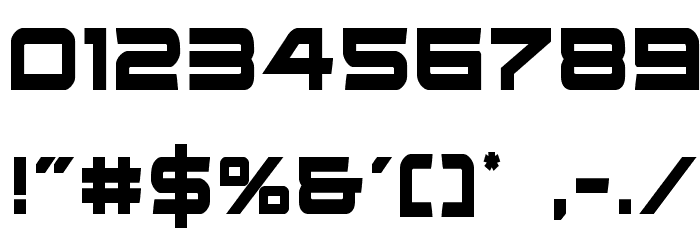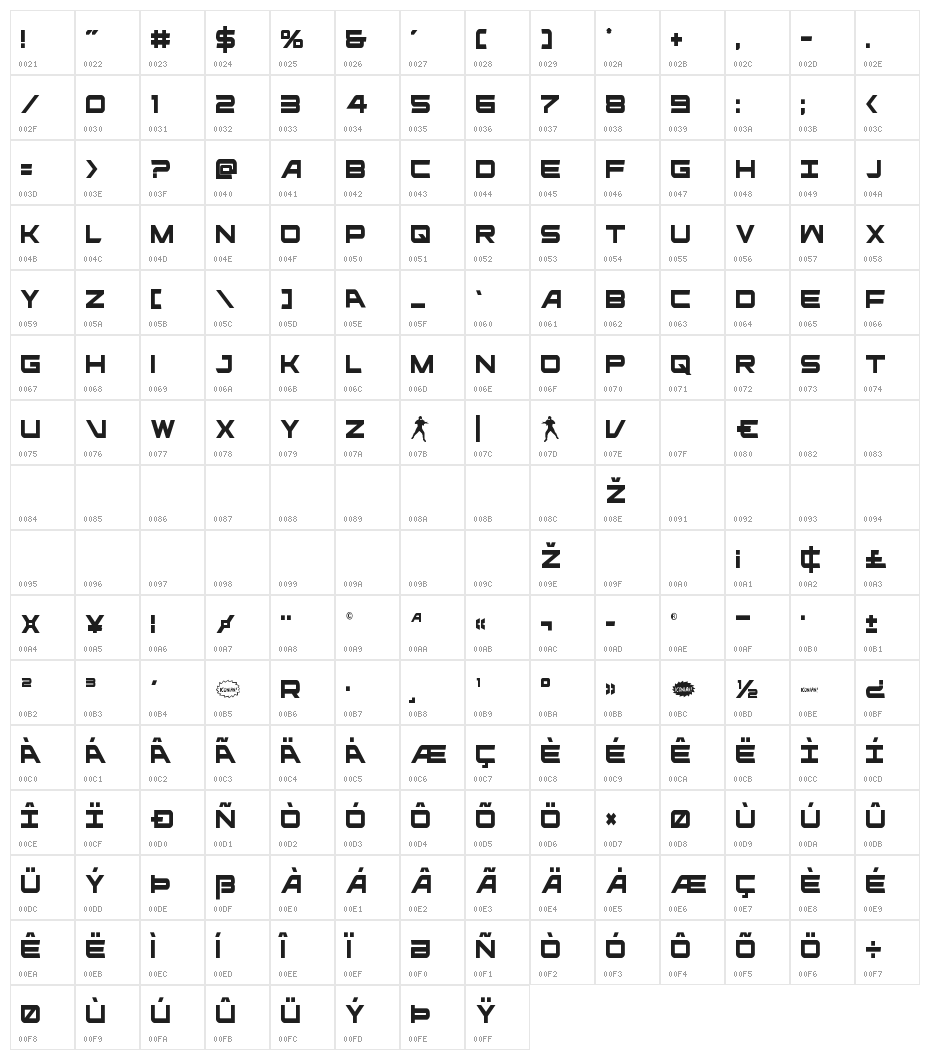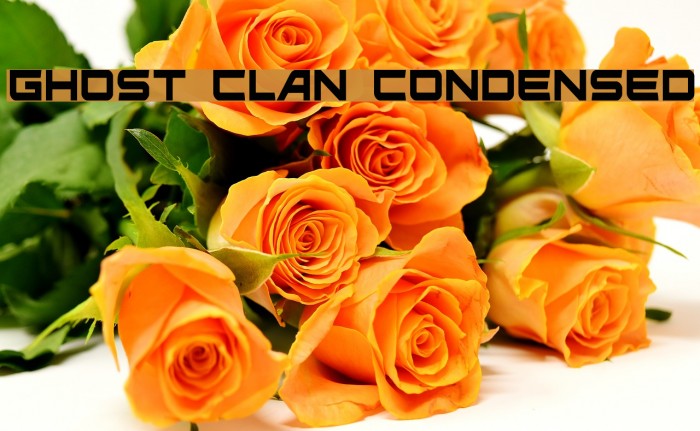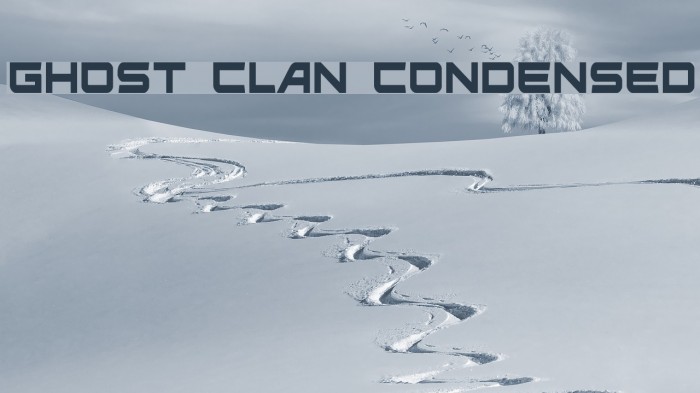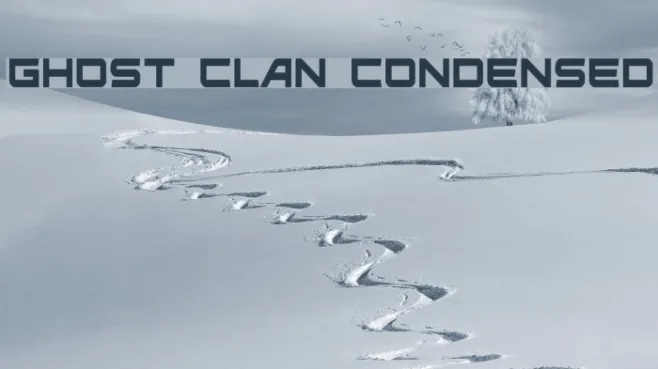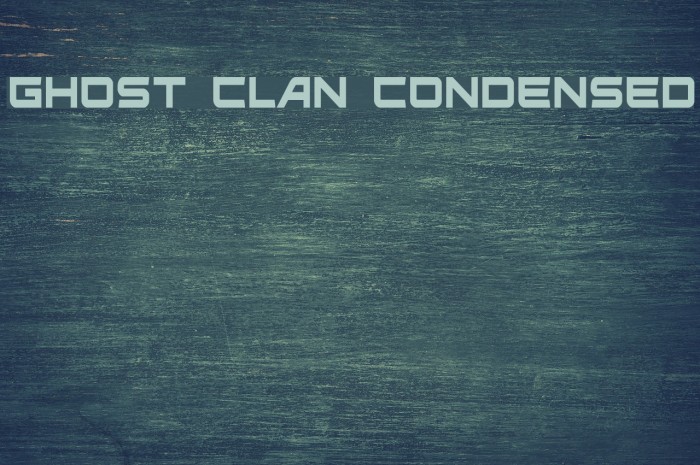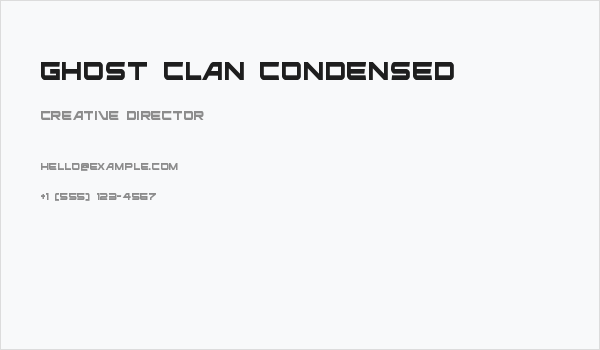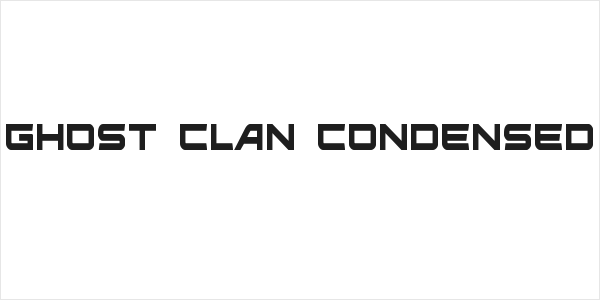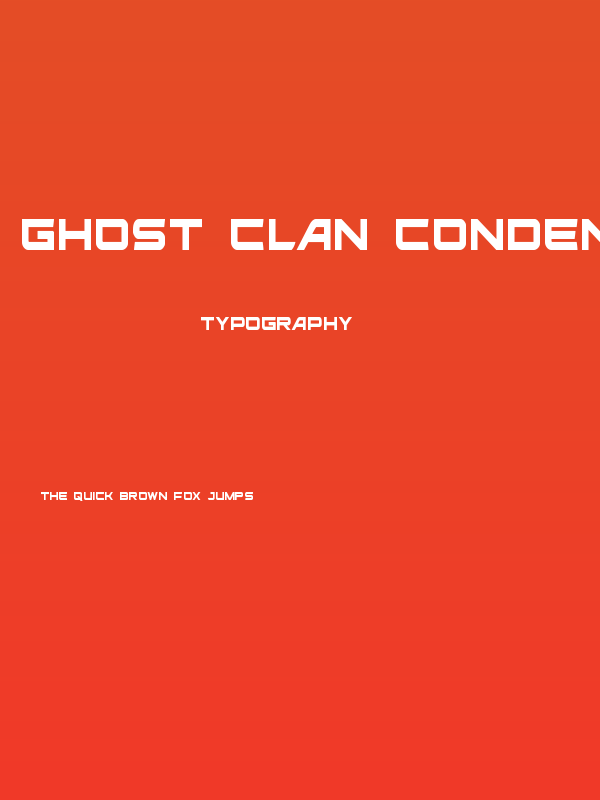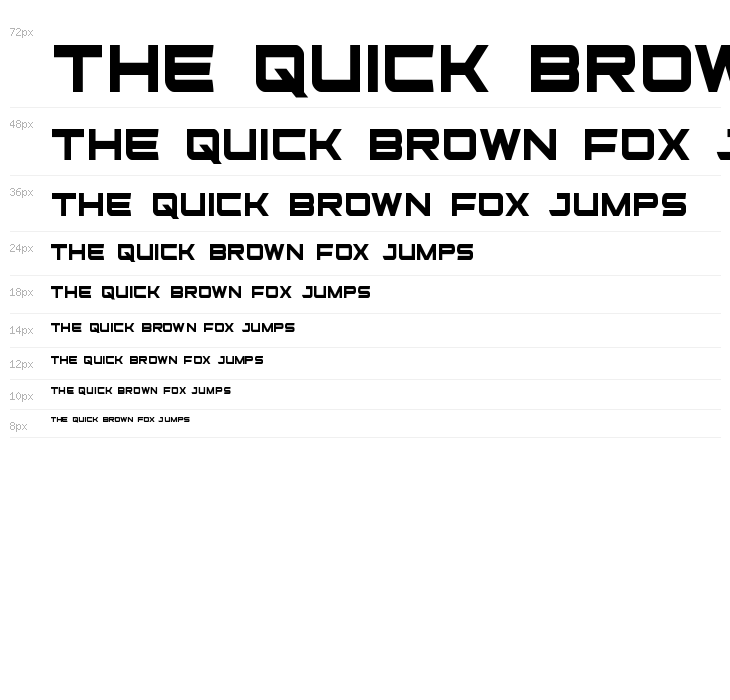
Ghost Clan Condensed Font
Ghost Clan Condensed Description
This font features a bold and futuristic design with a condensed structure, making it ideal for impactful headlines and modern branding. The characters are geometric with sharp angles and a uniform stroke width, creating a cohesive and streamlined appearance. The uppercase letters are particularly striking, with a strong presence that commands attention. The numerals and special characters maintain the same bold style, ensuring consistency across all text elements. This font's unique style is perfect for projects that require a modern and edgy look.